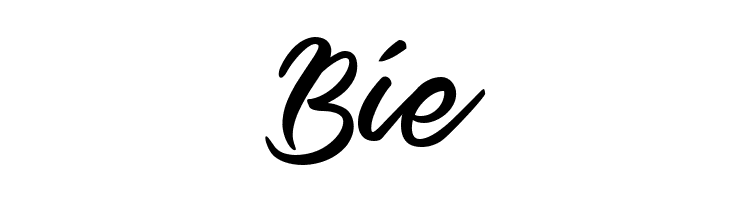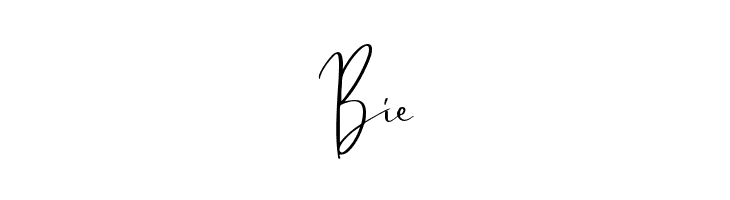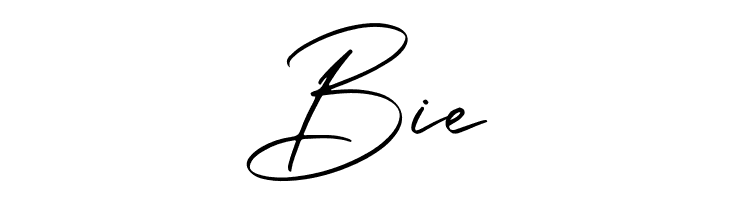
An elegant, flowing script font with smooth, cursive strokes and sophisticated loops.
A bold, playful font with a hand-drawn, casual style.
A modern handwritten font with a playful and casual style.
A stylish and elegant script font with flowing, connected letterforms.
An elegant, flowing script font with ornate uppercase letters and smooth, cursive lowercase letters.
A dynamic and flowing script font with elegant, interconnected strokes.
An artistic and flowing calligraphic font with elegant curves.
A dynamic and fluid script font with elegant, flowing strokes.
A bold, flowing script font with elegant curves and cohesive style.
An elegant, fluid script font with a sophisticated, handwritten style.